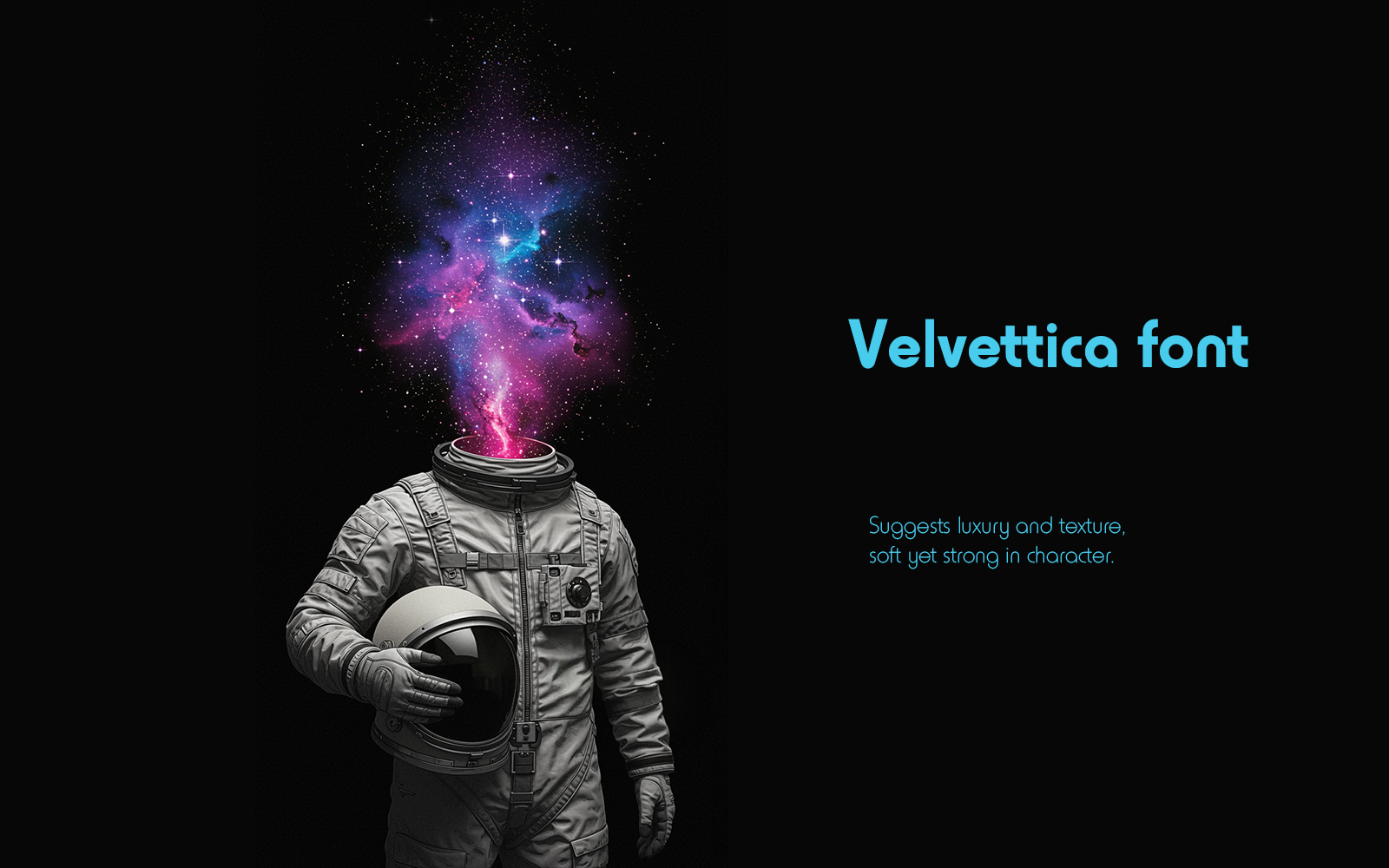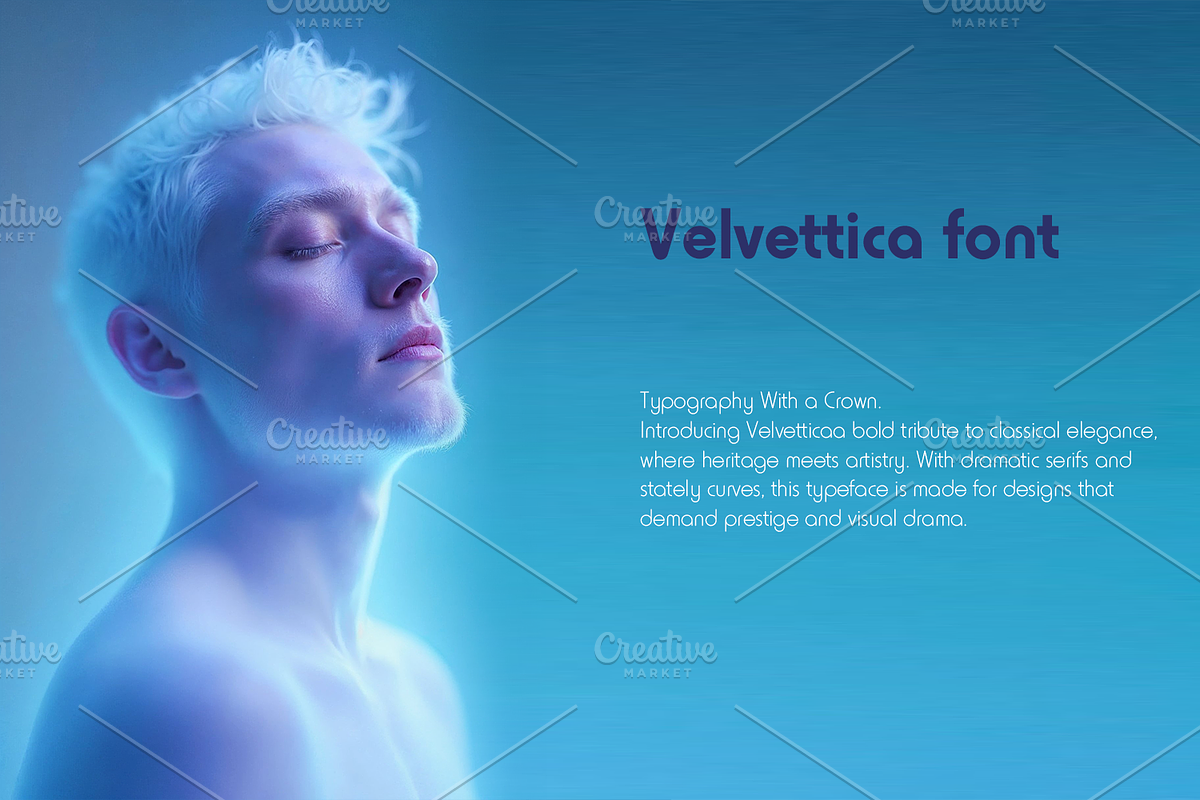
Typography With a Crown.
Introducing Velvettica — a bold tribute to classical elegance, where heritage meets artistry. With dramatic serifs and stately curves, this typeface is made for designs that demand prestige and visual drama. Whether used in luxury branding, theatrical posters, or refined editorial layouts, HORATIOL transforms words into visual poetry.
Because sometimes, your message needs to dress like royalty.